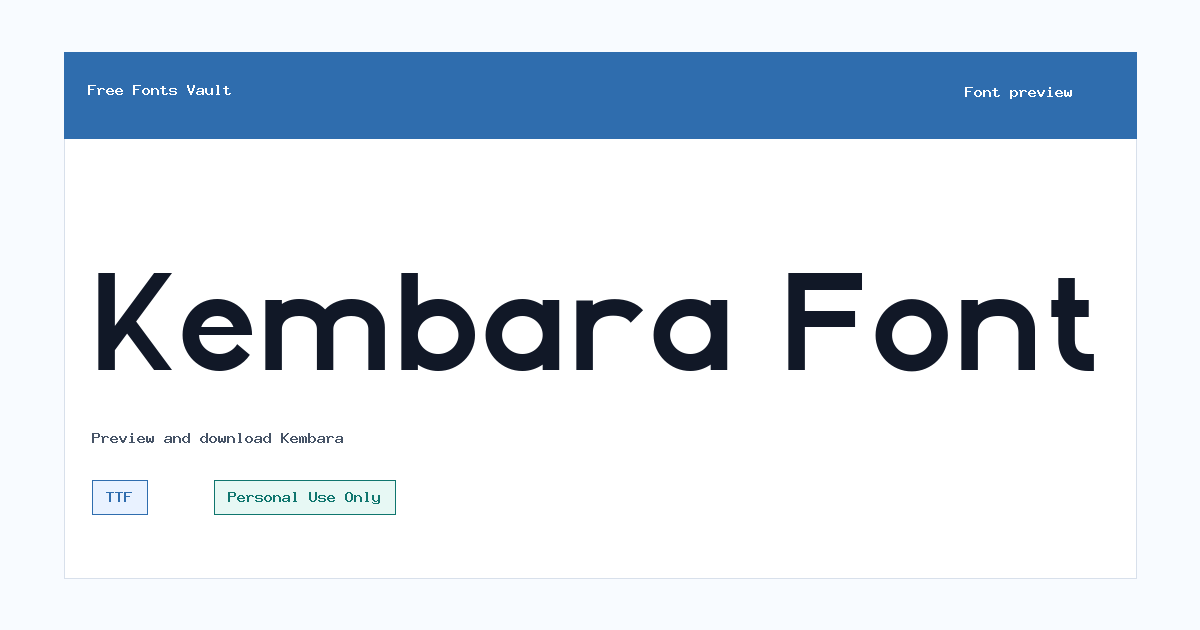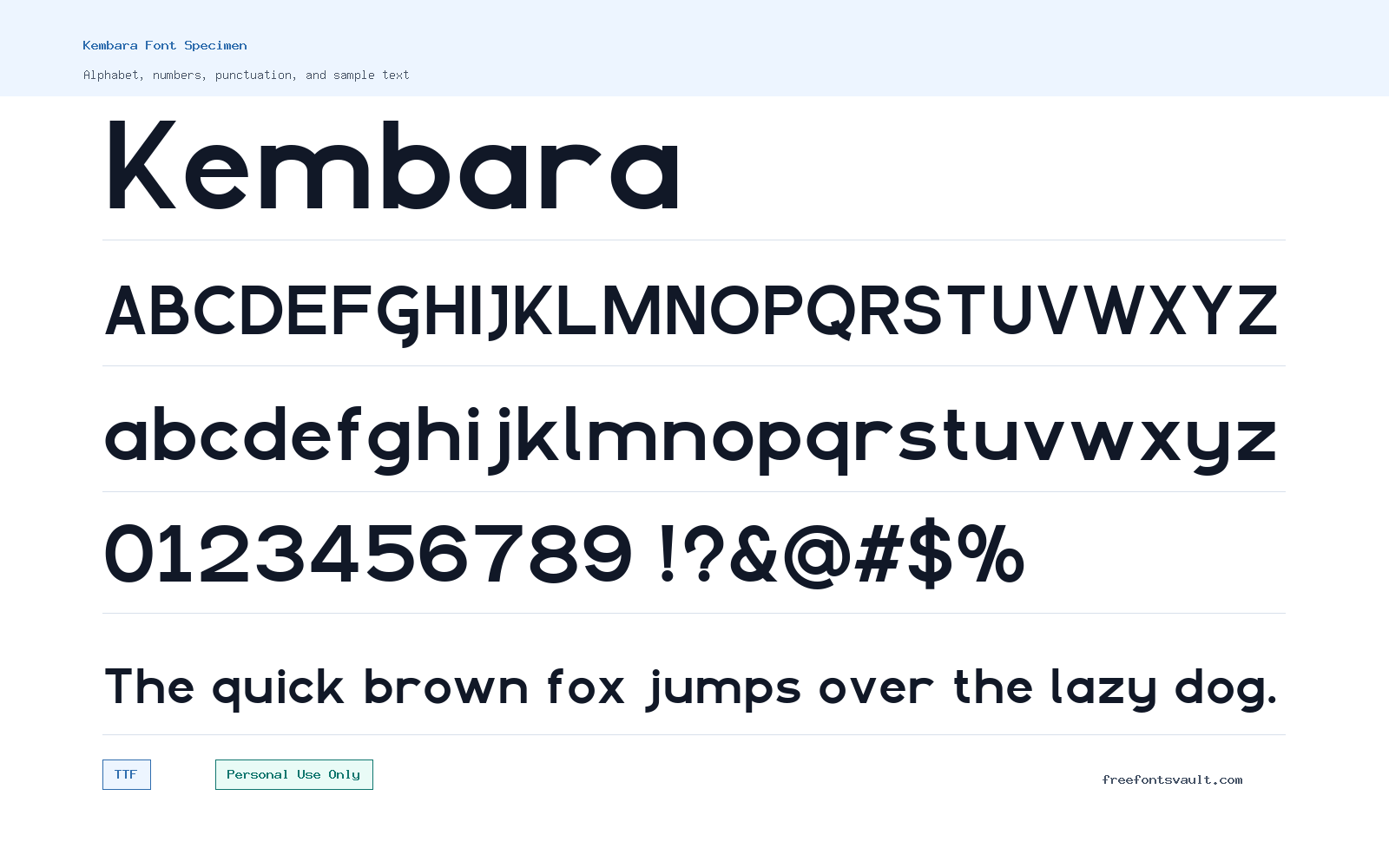
Kembara
- Designer Pikgura
Kembara font.
Kembara is a sans serif font by Pikgura with a regular style for personal projects. It is a practical choice when you want a clean letterform style for titles, short labels, graphics, and preview-based design testing.
About Kembara Font
Kembara keeps things straightforward: one regular weight, normal style, and both TTF and OTF file formats. That makes it easy to test in common design apps, document tools, and web mockups before deciding whether it fits your project. Because the known file is a sans serif design, it is best approached as a clean display or text-support option rather than a decorative script or complex themed font. Use the preview box to check how its spacing, capitals, numbers, and punctuation behave with your own words.
For best results, try Kembara first in short text: logo rough drafts, social posts, simple posters, packaging mockups, thumbnails, badges, and section headings. If you plan to use it for longer reading, test a full paragraph at the size you need. Some fonts that look sharp in headlines can feel less comfortable in dense body copy, so preview it in real layout conditions instead of judging it from a single word. Pair it with a calm serif or a neutral sans serif if you need contrast, and avoid mixing it with too many other strong display fonts in the same design.
- Regular 400 weight in a normal upright style
- Personal design drafts, posters, social graphics, and title treatments
- Logo concepts, short headings, badges, labels, and visual mockups
What style is Kembara?
Kembara is listed as a sans serif font in a regular, normal upright style.
Who designed Kembara?
The designer name listed for Kembara is Pikgura.